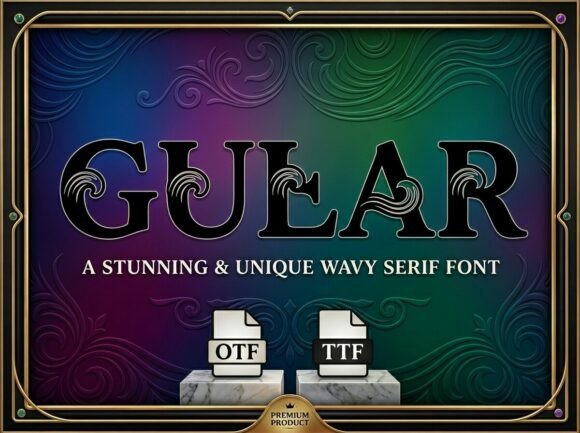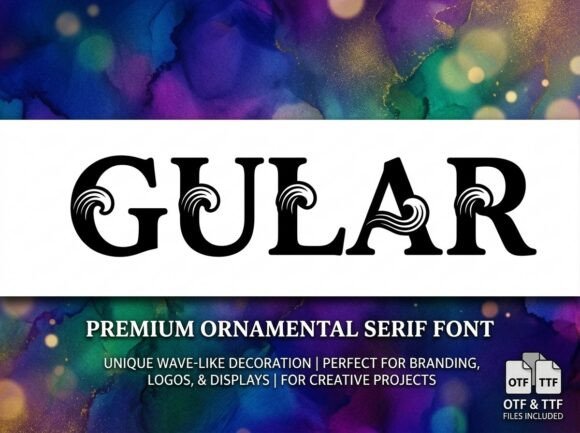
Introduction to Gular Font Font
Fonts play a crucial role in design, and the Gular Font font is a typeface that brings both character and versatility to any project. Whether you’re working on a branding project, a website, or a print design, the Gular Font font offers a unique style that can elevate your work.
Ride the tide of sophisticated design with Gular, a fluid decorative serif that captures an “aquatic-and-elegant” soul.
This font features classic, high-contrast serif letterforms uniquely integrated with rhythmic, hand-drawn wave flourishes that crest from the stems of each character With its balanced structural weight and oceanic personality, Gular is the premier choice for independent surf-lifestyle branding, coastal resort identities, high-end seafood restaurant logos, and high-impact “serene-and-seafaring” social media headers.
Key Features of Gular Font Font
Why Choose Gular Font Font?
The Gular Font font is more than just a typeface – it’s a design tool that helps you communicate your message with style and clarity. Its unique character set and versatile design make it suitable for a wide range of applications, from elegant invitations to bold headlines.
With its carefully crafted letterforms and balanced proportions, the Gular Font font ensures readability and visual appeal across all mediums.
What makes Gular Font font special?
The Gular Font font stands out with its unique design, exceptional readability, and versatility across various design applications.